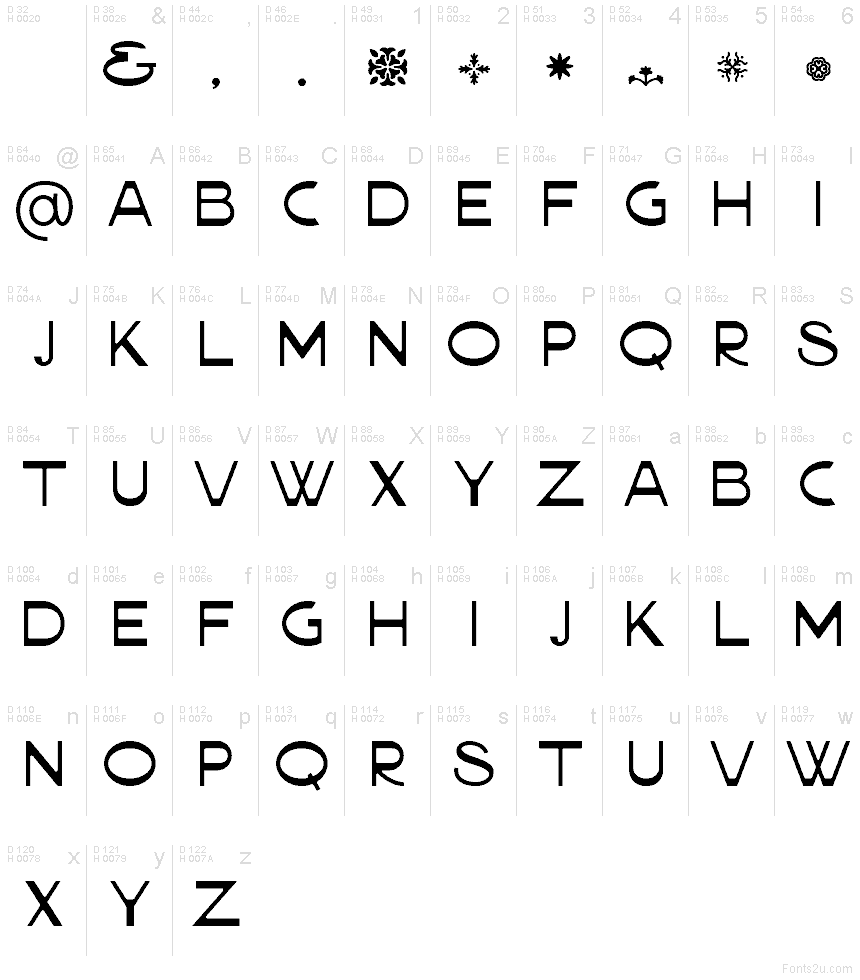
Bakora Personal Use
Bakora font by Hishand Studio is an expanded sans serif typeface with a monumental presence. Its clean, geometric, and sharp features display modernist influences all throughout. While keeping it simple is an essential part of this typeface, it remains unique by maintaining a low contrast design for sleekness and elegance.